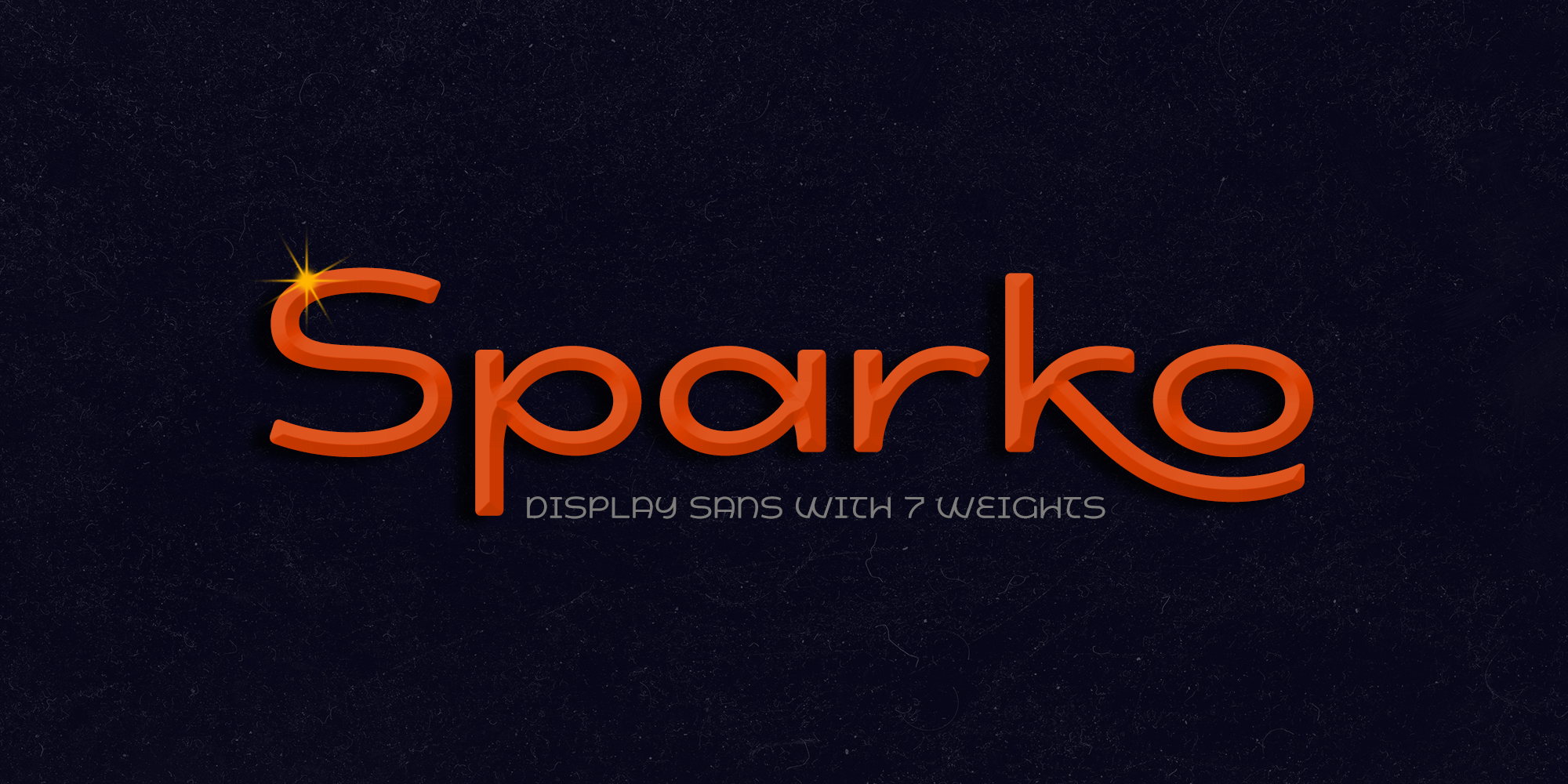
Sparko
Sparko is a display sans font family. This typeface has seven styles and was published by Locomotype.
Sparko is a display sans serif typeface with a distinctive geometric shape. Lowercase have a small x-height and tall ascenders make the font look great in titles and short paragraphs. While capital letters has a unique character that reminds us of the old typographic style but has been modernized. But don’t worry, alternative caps are already prepared in case you want a different look in your creations.
This font is available in 7 weights, from Thin to Black. In addition to standard characters that support multi-language, it also provides stylistic sets for more exploration in your design projects.
Sparko is suitable for big headlines, promotional posters, movie titles, games, logotypes, packaging designs, aesthetic typography, personal quotes and more.